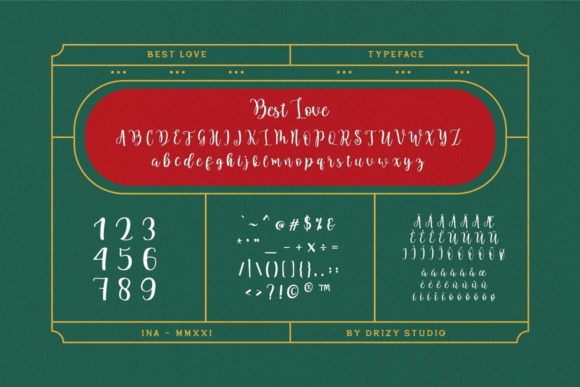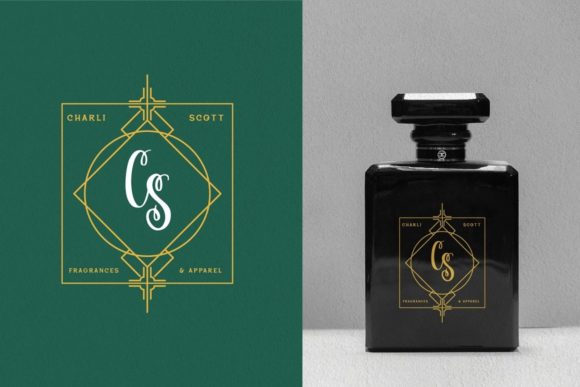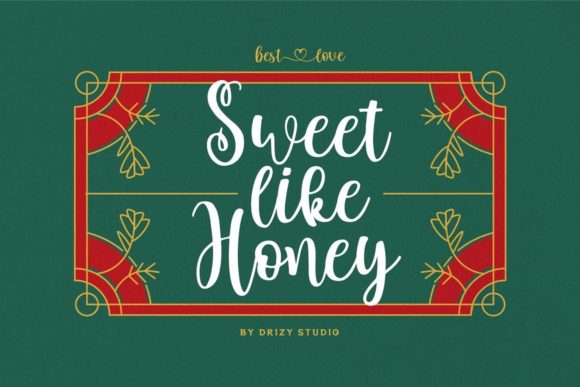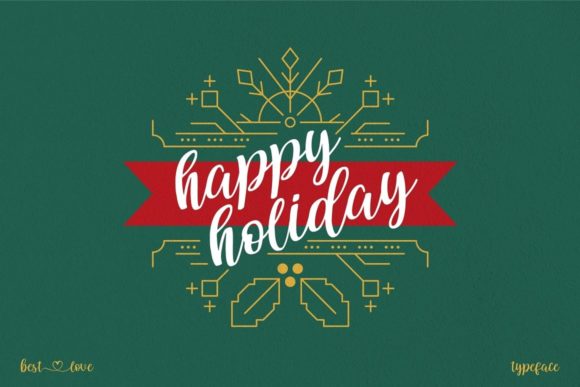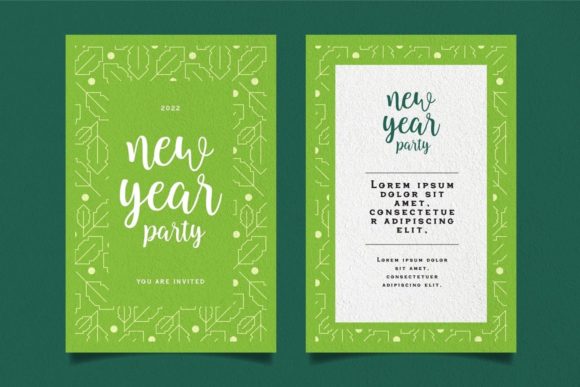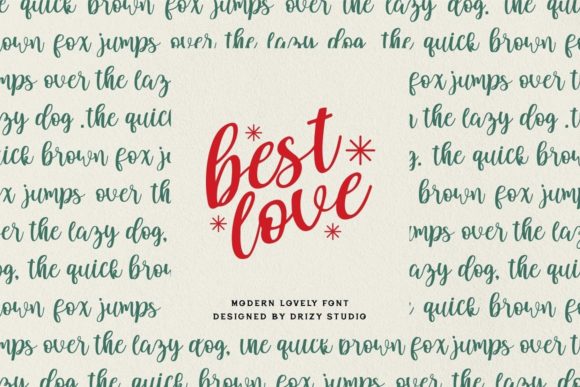
The Perfect Script for Your Heartfelt Designs
As a designer, you’ve probably found yourself stuck in a creative rut, struggling to convey the emotions and feelings that make a project truly special. It’s that moment when you’re brainstorming ideas for a Valentine’s Day campaign or a Christmas card, and you wish you had the perfect font to match the love and warmth in your heart.
That’s where the Best Love Font comes in – a modern handwritten font designed specifically for romantic and Christmas designs. With its personal touch and authentic feel, this font is a game-changer for any project that needs a little extra love. And the best part? It’s PUA encoded, making it easy to access all of the glyphs and swashes you need to bring your designs to life.
Key Features of “Best Love Font”
- Font Family: A beautiful, elegant script font designed to convey love and romance.
- Unique Characteristics: Includes ligatures, swashes, and flourishes to add a touch of elegance and sophistication.
Designer Review: “Best Love Font”
At first glance, “Best Love Font” seems like the perfect addition to any romantic project. The ✨ elegant, cursive script✨ is sure to capture the hearts of anyone who sees it.
The font’s versatility is a major plus. It works well in both digital and print media, and its ✨ high legibility✨ makes it easy to read, even at smaller font sizes. Additionally, the font’s ✨ wide range of language support✨ is a major advantage for designers who work with clients from diverse linguistic backgrounds.
However, there are some limitations to consider. The font’s ✨ limited character set✨ can make it difficult to use for longer blocks of text. Furthermore, the font’s ✨ lack of bold weights✨ can make it challenging to create visually appealing headings.
Overall, I would give “Best Love Font” 3.5 out of 5 stars. While it excels in terms of its aesthetic appeal and versatility, its limitations hold it back from being a truly top-notch font.
- ✨ Elegant, cursive script
- ✨ High legibility
- ✨ Wide range of language support
- ✨ Limited character set
- ✨ Lack of bold weights
The Best Love Font is ideal for creating romantic and elegant designs. Common use cases include:
– Valentine’s Day cards and gifts
– Romantic quotes and poems
– Love-themed social media posts and graphics